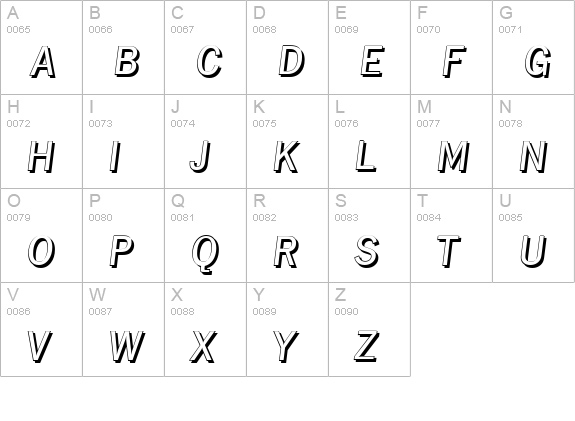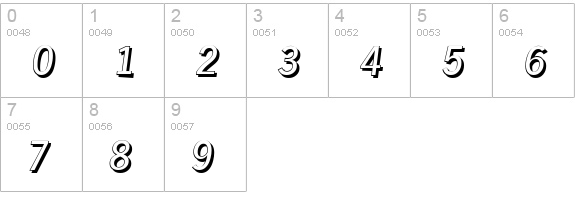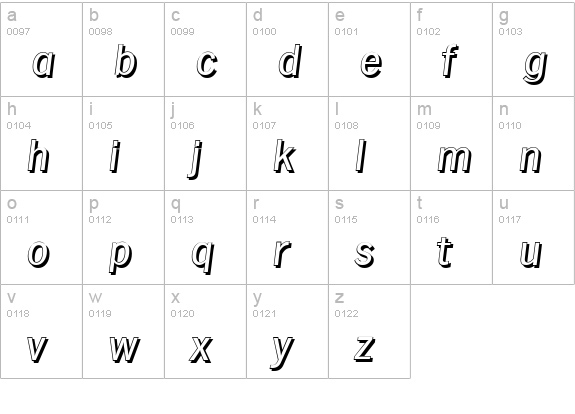
HamburgShadow-Italic Font Details
HamburgShadow-Italic is a distinctive, italic variant in the HamburgShadow typeface family \xE2\x80\x94 well suited to design and typography projects.
HamburgShadow-Italic is a stylish and elegant font that exudes a sense of sophistication and modernity. Its unique italic design adds a touch of flair to any text, making it perfect for a variety of design projects. The shadow effect gives the font an extra dimension, creating a striking visual impact. What makes HamburgShadow-Italic even more appealing is that it is available for free download at FontsMarket.com. This means you can easily access this exquisite font without any cost, making it a valuable addition to your font collection. Whether you're working on branding, invitations, posters, or any other creative project, HamburgShadow-Italic is sure to elevate your design with its sleek and distinctive appearance. Download it now and let your creativity shine with this exceptional typeface.